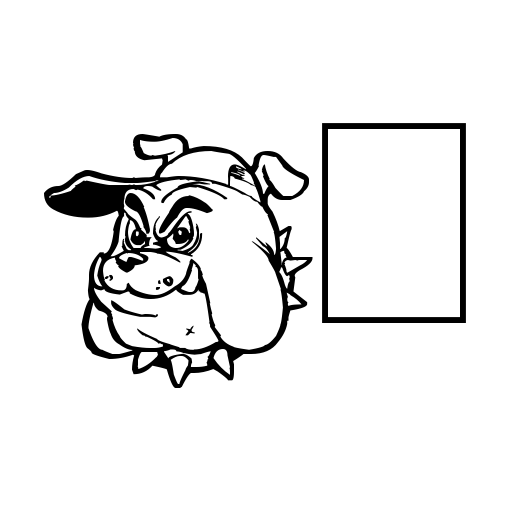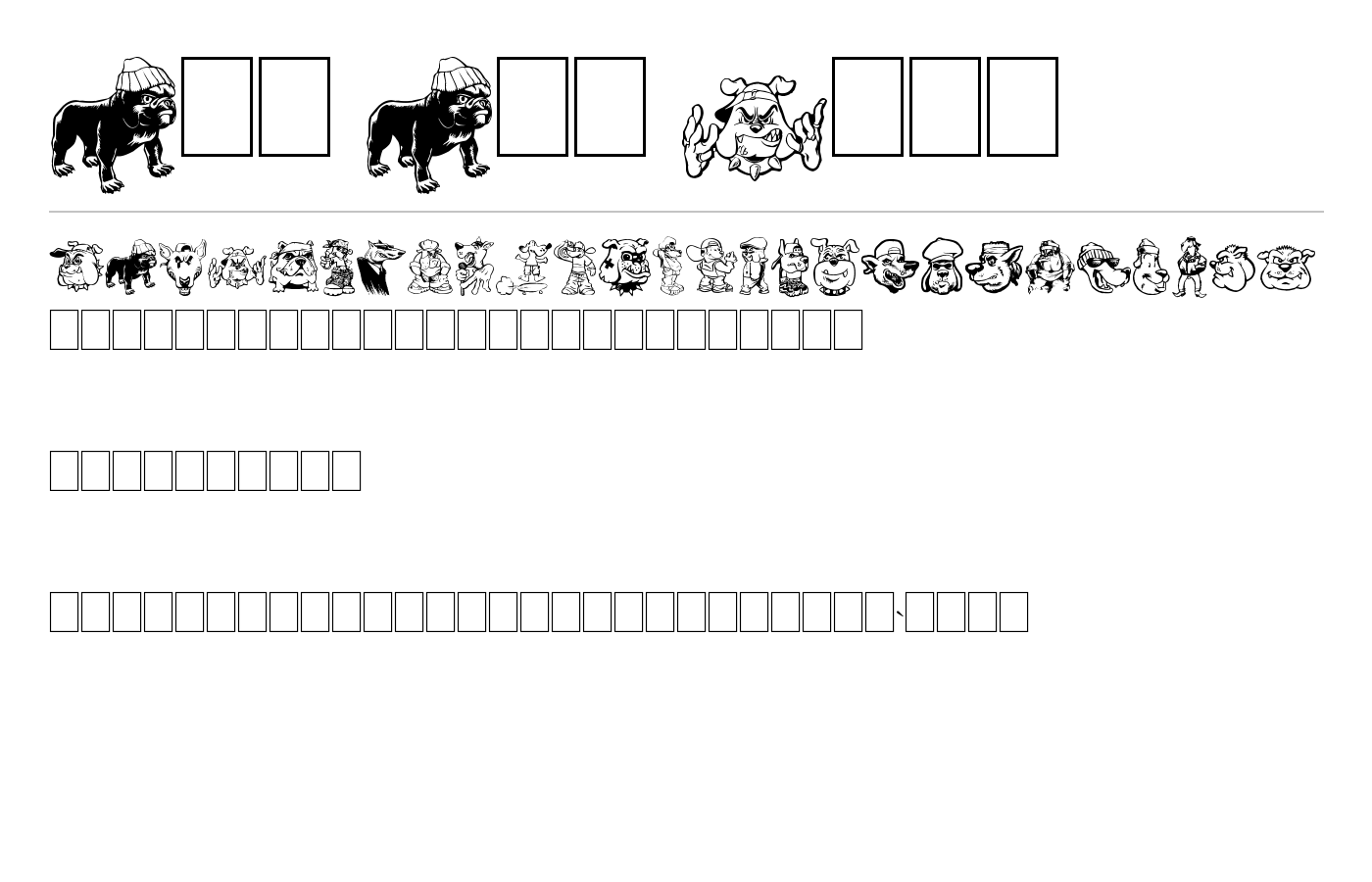
Big Bad Dogs is a playful dingbat font featuring a variety of bold, cartoonish dog characters and expressive faces. Its unique illustrations evoke a fun and energetic vibe, making it perfect for casual, humorous, or pet-themed designs. This font works best in logos, posters, and branding where a lively and quirky personality is desired.
Big Bad Dogs Font
About Big Bad Dogs Font
| Font family | Big Bad Dogs Font |
| Designer | Imagex |